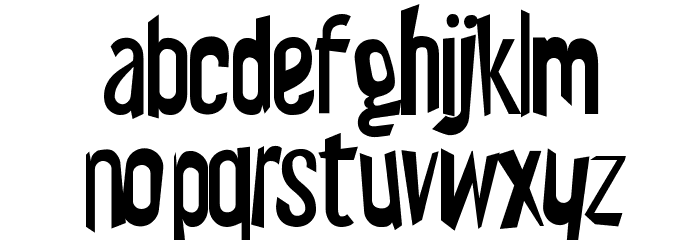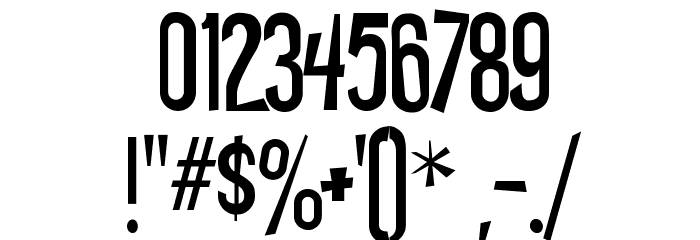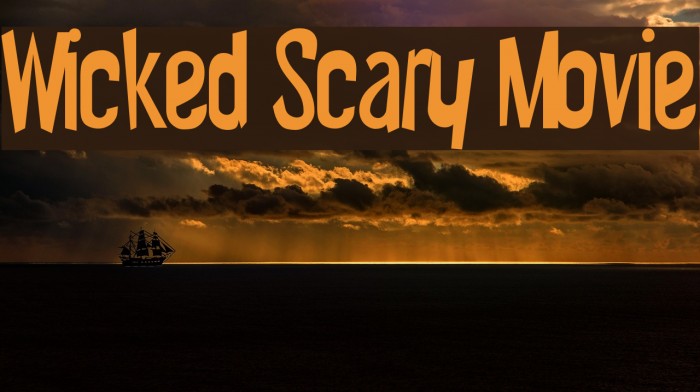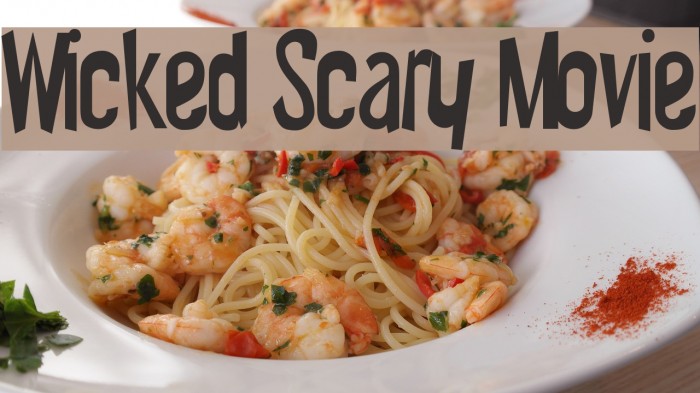
Wicked Scary Movie Font
This font features a bold and playful design with a slightly spooky twist. The uppercase letters have a tall, narrow appearance with varying stroke widths, giving them a dynamic and somewhat eerie look. The lowercase letters maintain a consistent style, with rounded edges and a quirky, uneven baseline that adds to the font's whimsical character. The numerals are bold and clear, matching the overall style of the letters. Special characters are included, each designed to complement the font's unique aesthetic. This font is perfect for projects that require a touch of fun and mystery, such as Halloween-themed designs or playful branding.
A bold, playful font with a spooky twist, featuring dynamic strokes and quirky characters.
- Proposed Projects: Ideal for Halloween-themed designs, playful branding, posters, and creative invitations.